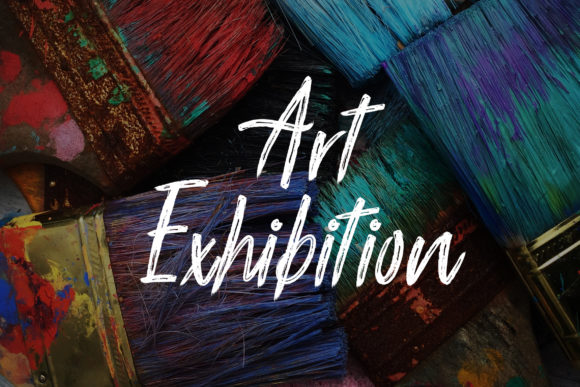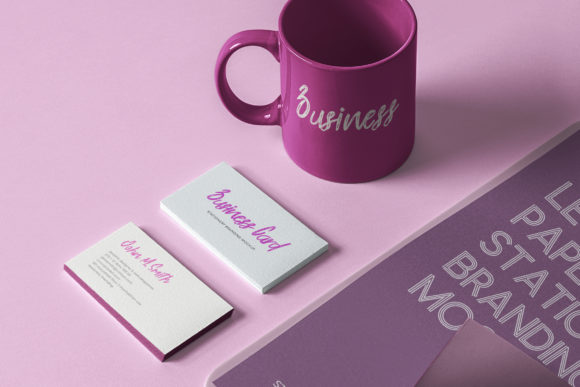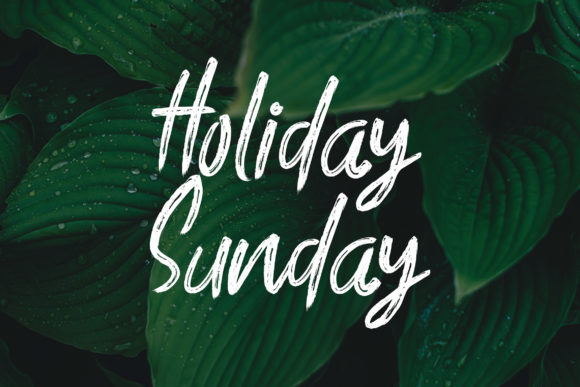
Introduction to Right Flower Font
Have you ever been working on a creative project, pouring your heart and soul into every detail, only to feel like something’s missing? That’s when I discovered the Right Flower Font – a game-changer in the world of design resources.
With its delicate and distinct brushed handwritten style, the Right Flower Font has a way of bringing your ideas to life. Its beautiful and well-balanced characters make it the perfect addition to a wide range of designs, from elegant invitations to whimsical children’s books.
What sets the Right Flower Font apart is its versatility and high quality. Whether you’re looking for a font to complement a transparent background or a bold statement piece, this font is sure to deliver. And the best part? It’s available for free download, making it a valuable resource for designers of all levels.
Key Features of Right Flower Font
- High-quality design resource ideal for creative projects, including digital art and print media.
- Features a transparent background, allowing for effortless customization and blending with any design element.
- Includes a range of font sizes, from 12pt to 72pt, and resolutions up to 300 DPI for crisp and clear display.
- Unique, handcrafted design with intricate details and subtle nuances, setting it apart from generic fonts.
Honest Review: Right Flower Font
As a designer, I’m always on the lookout for high-quality design resources to elevate my creative projects. The Right Flower Font has caught my attention, and I’m excited to share my thoughts on this beautiful font.
- ✨ Unique and delicate design that adds a touch of elegance to any project.
- ✨ Comes in a range of sizes and styles, making it versatile for various creative applications.
- ✨ Offers a transparent background, allowing for seamless integration with any design element.
- ⚠️ The font may not be suitable for projects that require a bold or dramatic look, as it’s more delicate and refined.
Overall, I’m impressed with the Right Flower Font’s design and versatility. It’s a great addition to any designer’s toolkit, and I’m happy to have it in my collection. If you’re looking for a beautiful and delicate font for your next creative project, the Right Flower Font is definitely worth considering.
How to Use Right Flower Font
Right Flower Font is ideal for a variety of creative projects, including wedding invitations, party decorations, and social media graphics. You can also use it to create a consistent brand identity for your business or organization.
Tips for Getting the Most Out of Right Flower Font
To get the most out of Right Flower Font, be sure to use it in conjunction with a transparent background. This will help your design elements stand out and create a clean, professional look. Additionally, experiment with different font sizes and styles to add visual interest to your design.